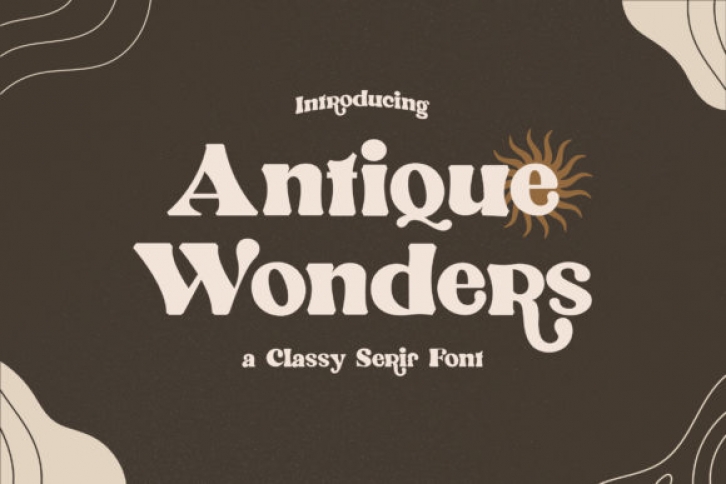
Antique Wonders is a stylish serif font that is both classy and bold. Masterfully designed to become a true favorite, this font has the potential to bring each of your creative ideas to the highest level!